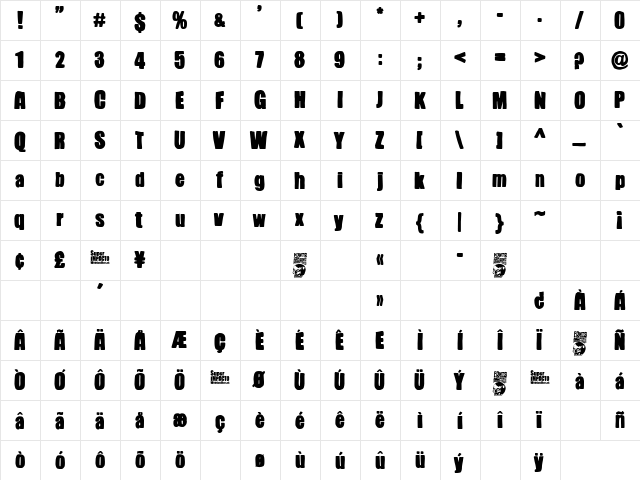
Super Impacto Regular
| Designer | Woodcutter Manero |
Design Context for Super Impacto Typeface
Super Impacto has the bold swagger of sports branding: strong, assertive letterforms designed to dominate headlines and jerseys alike.
Built for sports team identities, athletic apparel, event posters, and high-energy promotional material.
Font Pairing: Use alongside a condensed or geometric sans for supporting copy — keep the pairing bold, functional, and free of ornament.
Pro Tip: Super Impacto thrives on contrast — try it large, bold, and tight against a clean background for maximum visual impact.